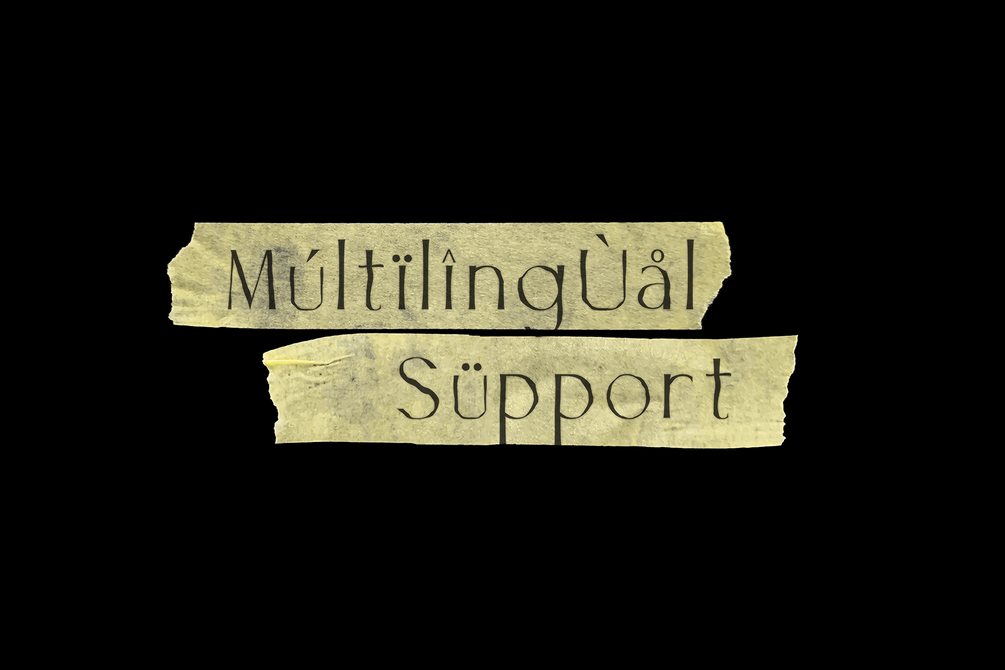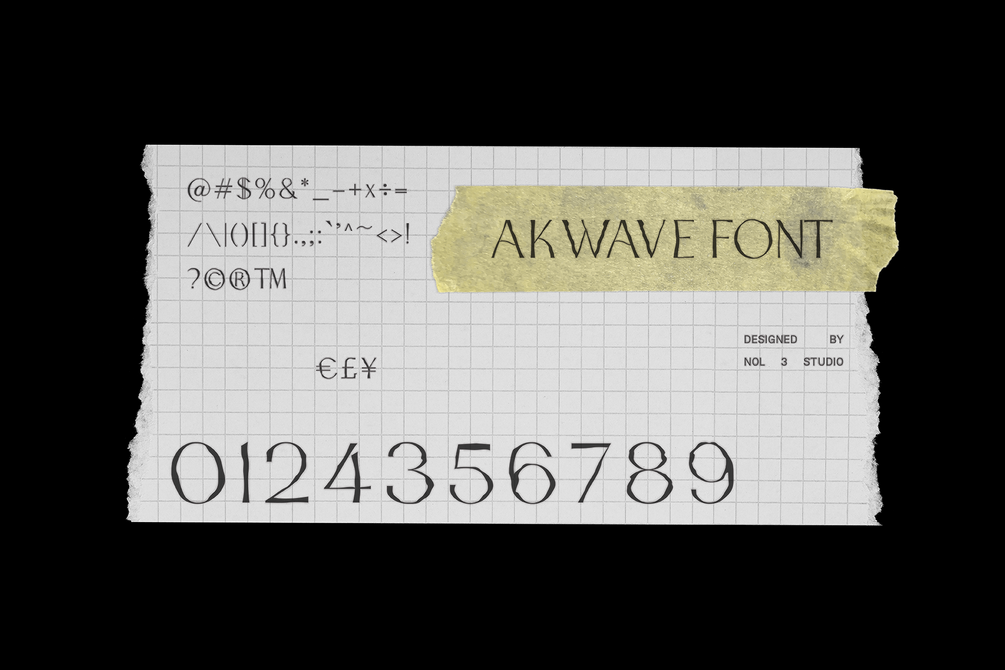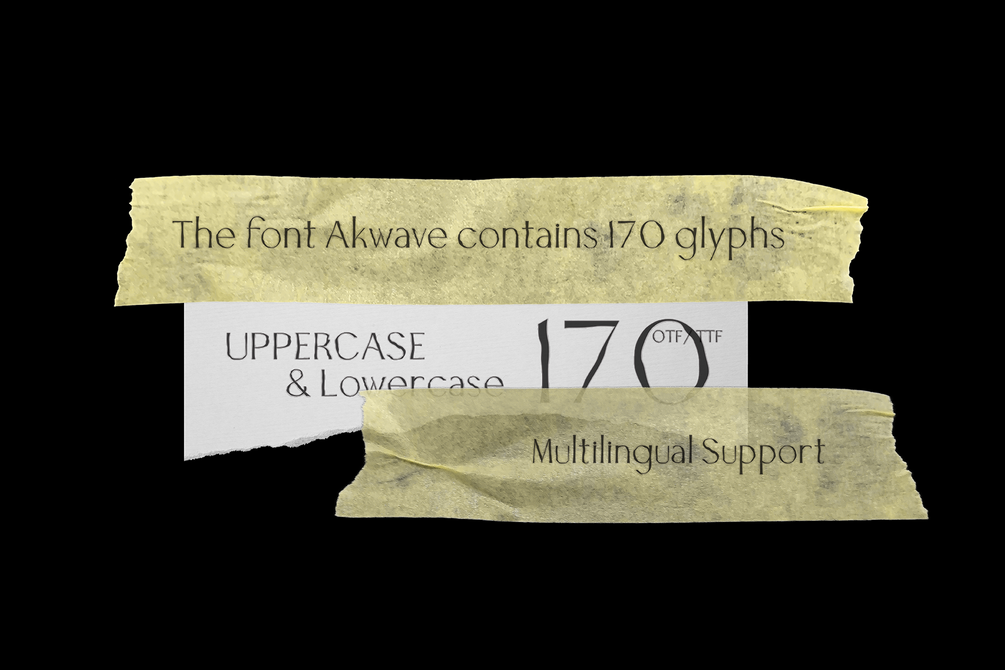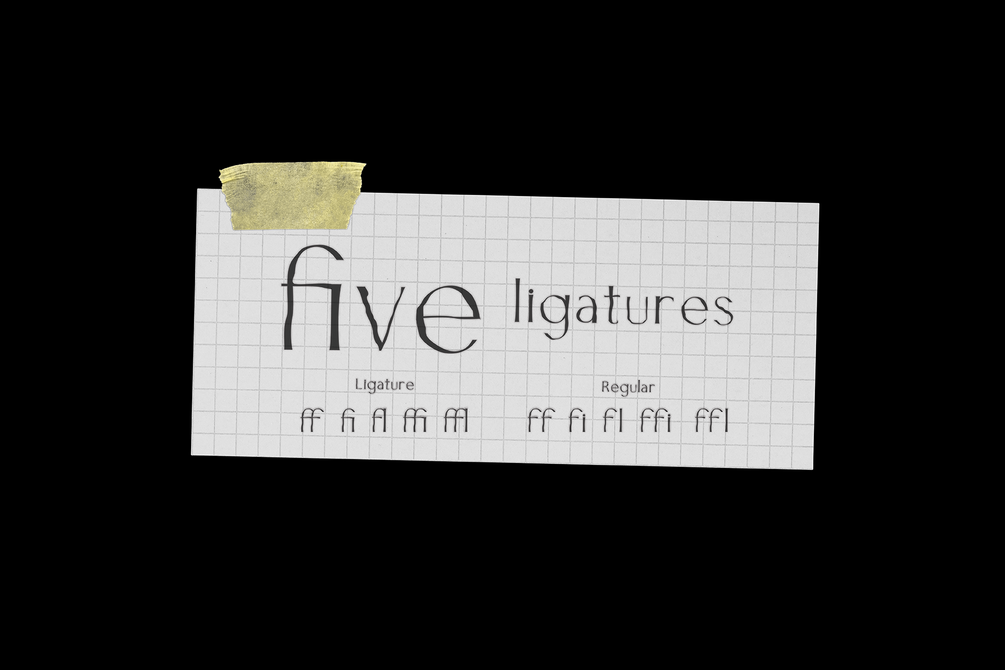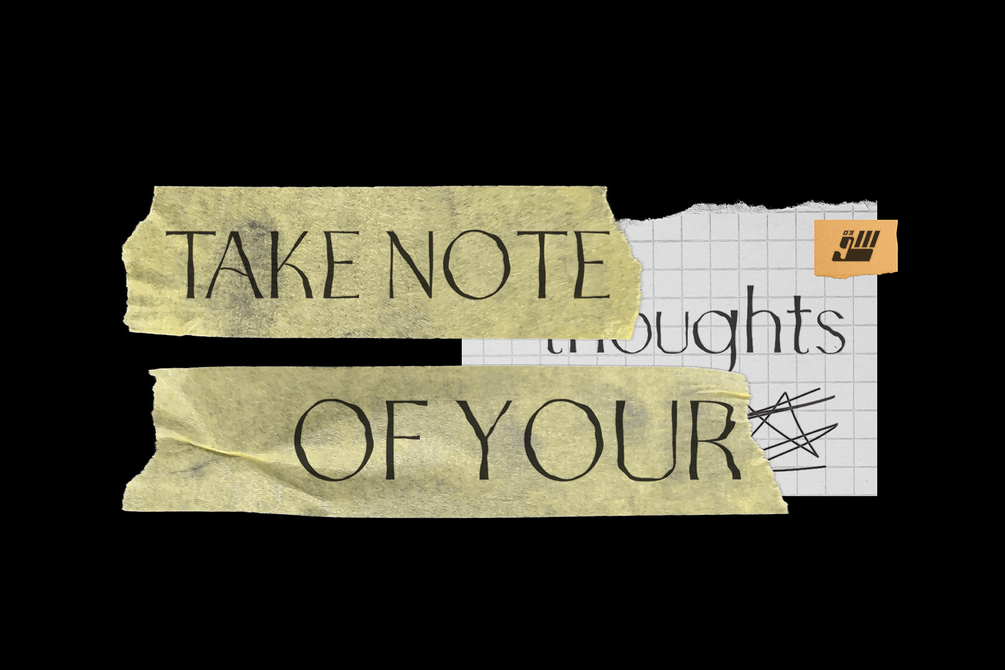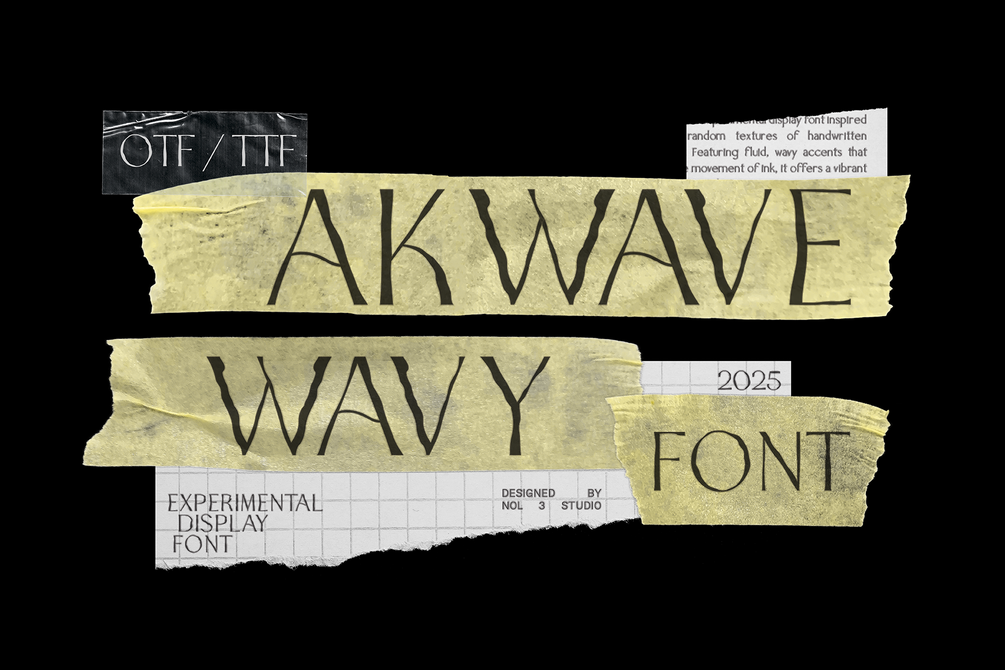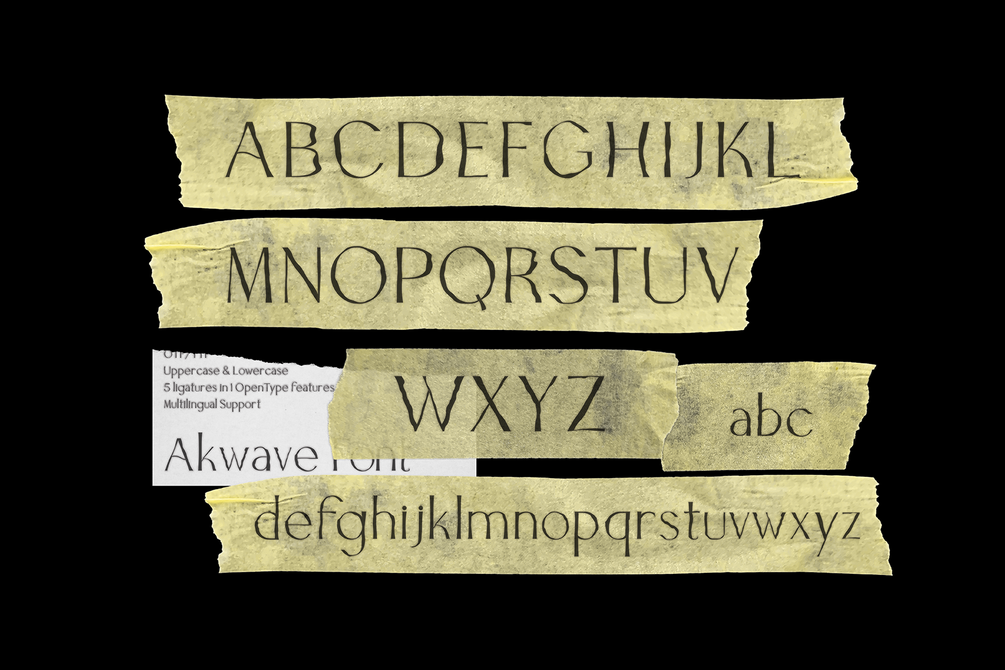
AKWAVE | Wavy Sans Serif Font
Akwave is an experimental display sans serif font inspired by the random textures of handwritten lettering. Featuring wavy accents that evoke the movement of ink, it offers a vibrant serif and artistic aesthetic. Ideal for creative projects, Akwave adds a unique touch to branding and headlines, capturing a sense of spontaneity.
Key Features
• The Font Contains 170 glyphs
• Uppercase & Lowercase
• Numbers & Punctuation
• 5 ligatures in 1 OpenType features
• Multilingual Support